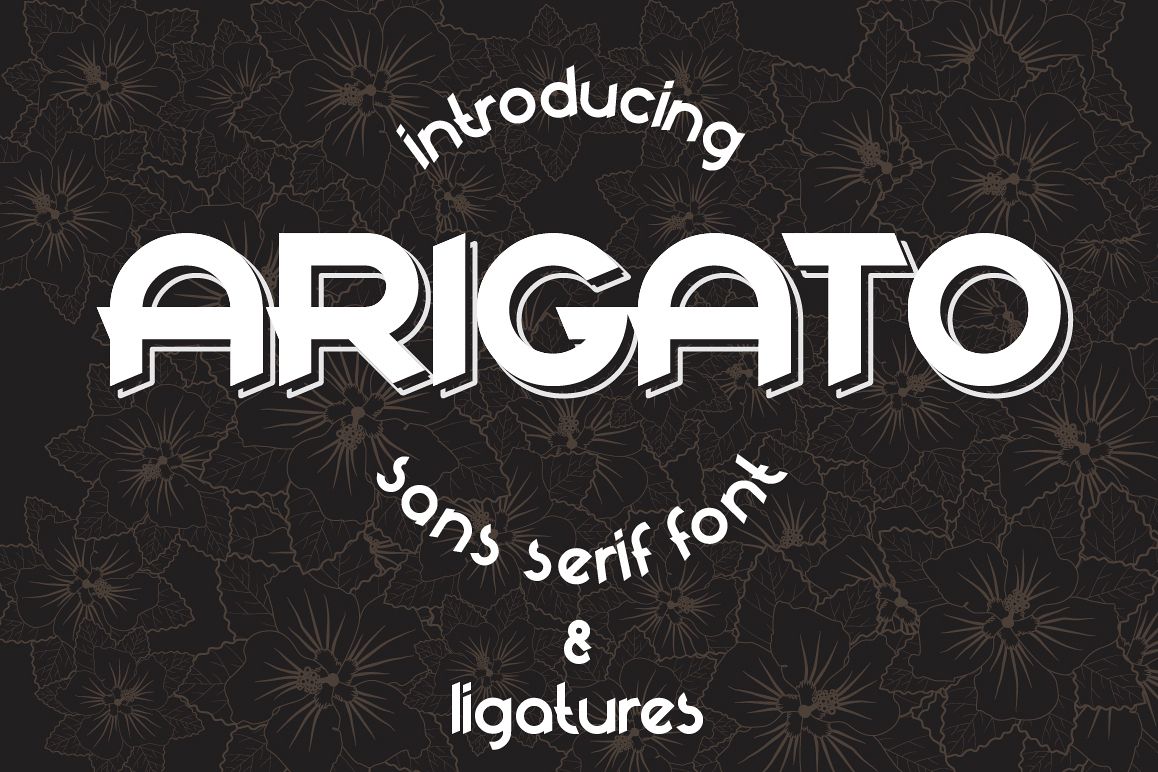
Arigato
Hi! Introducing typeface ARIGATO.
It is modern and minimalistic all caps sans serif font that looks stunning in every context.
Note: This font contains only latin characters